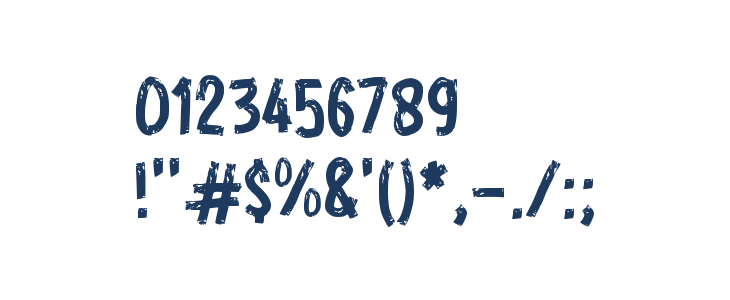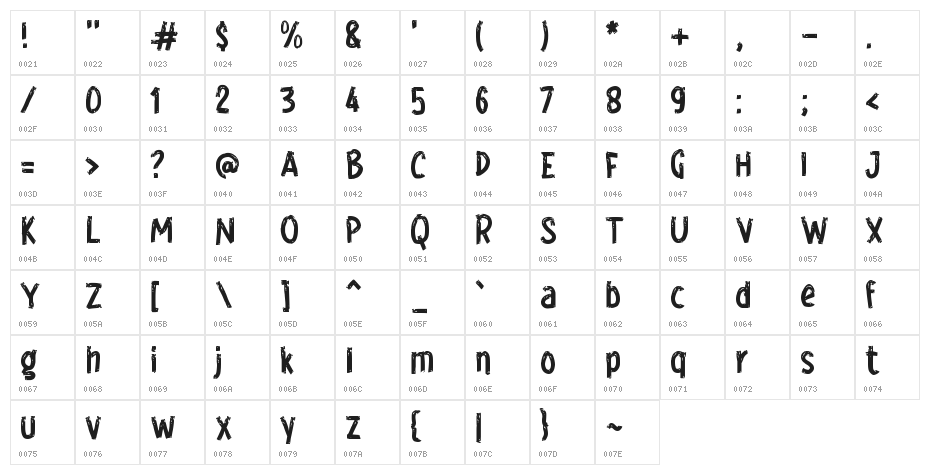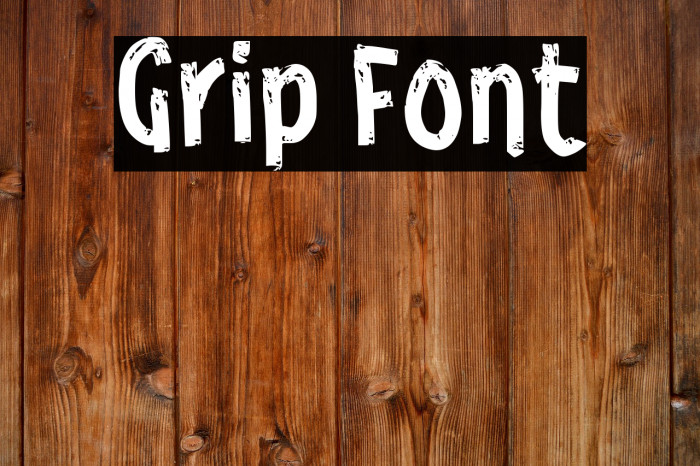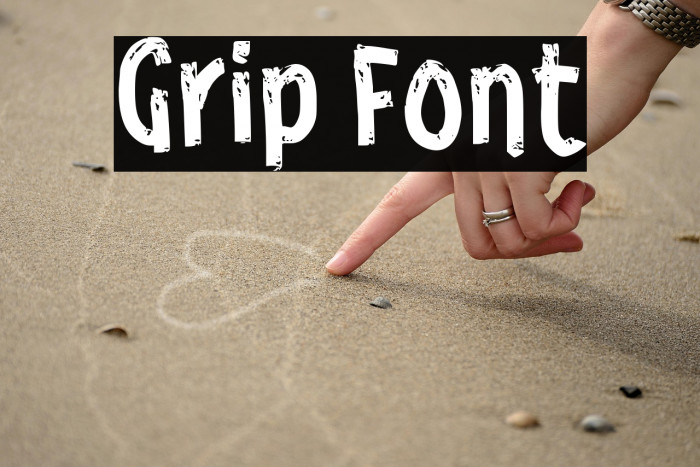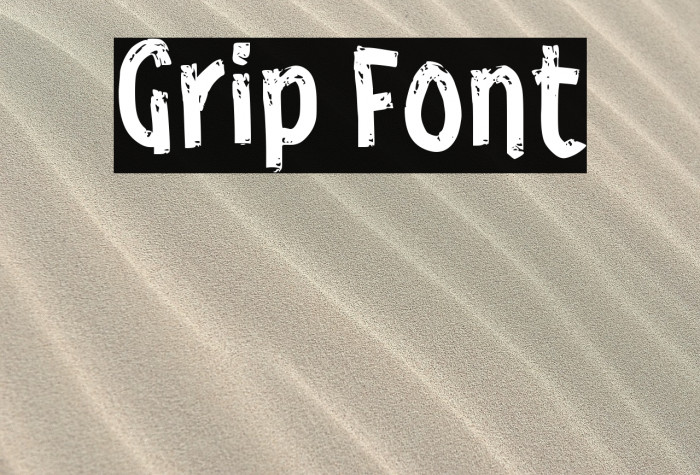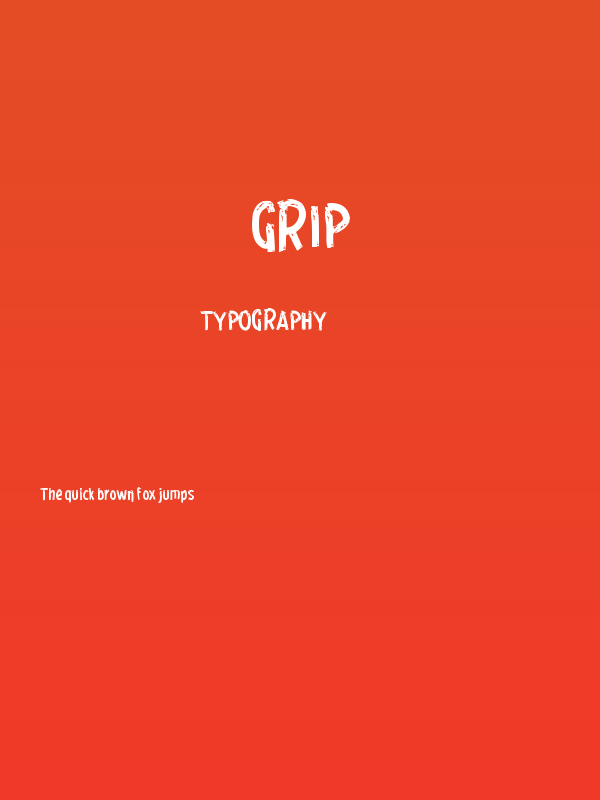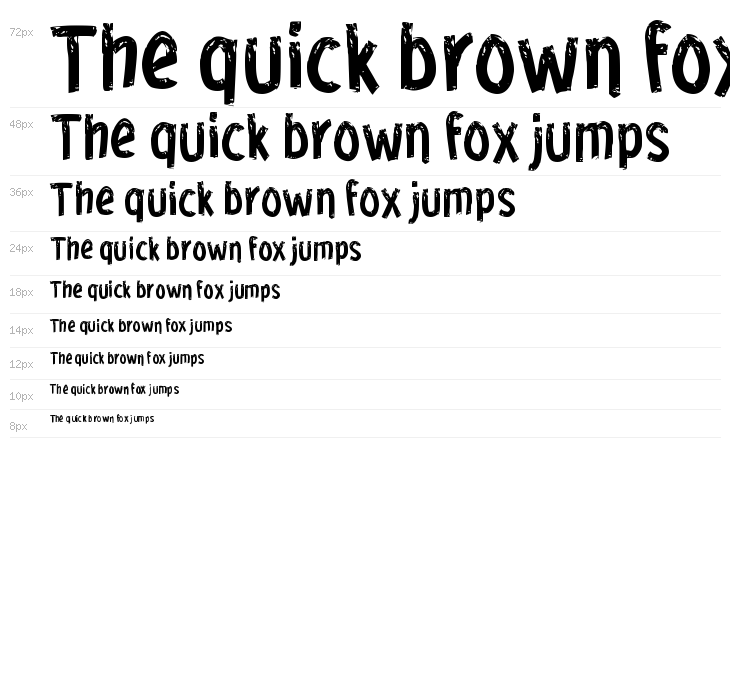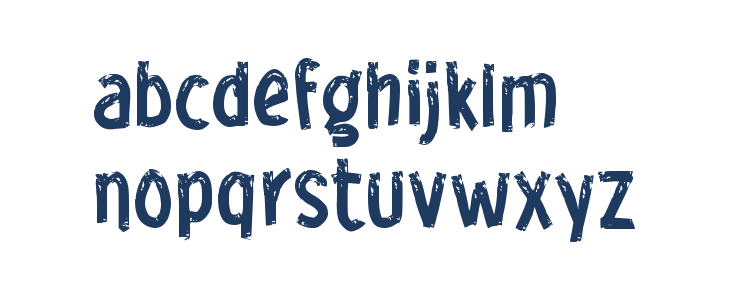
Grip Font
Grip Description
This font features a bold, distressed style with a hand-drawn appearance. The characters are irregular and textured, giving a rugged and edgy feel. The uppercase and lowercase letters maintain a consistent style, with slightly exaggerated curves and angles that enhance its unique look. Numbers and special characters follow the same design, ensuring uniformity across all glyphs. This font is ideal for projects that require a strong, impactful visual presence, such as posters, album covers, or branding for edgy or alternative products.
| Proposed Projects | Ideal for posters, album covers, edgy branding, and alternative product designs. |